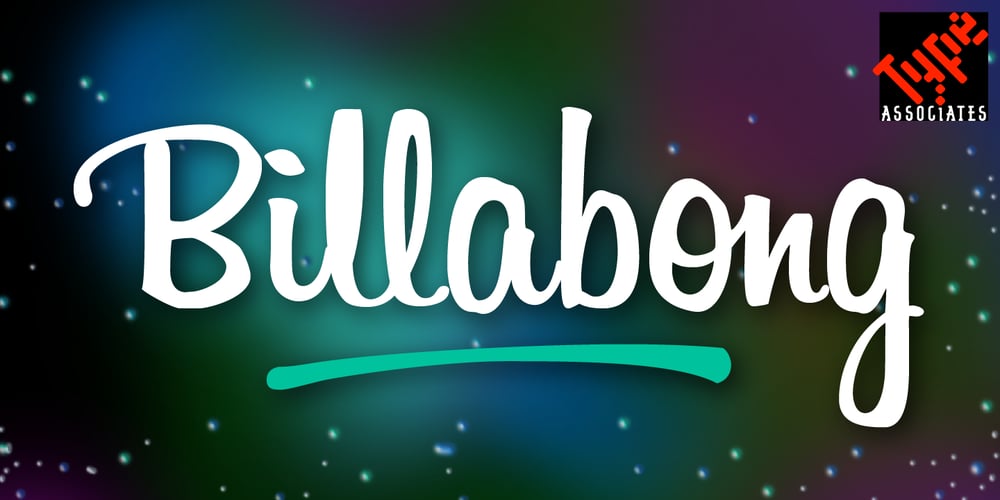
Billabong Font Family was designed by Russell Bean and published by Type Associates. Billabong contains 4 styles and family package options. Billabong has its origins in the handlettered 40s and 50s script headings that seem to have endured especially in signage when style doesn’t matter too much.Unlike today’s scripts Billabong is tightly spaced and Opentype font features allow for a myriad of ligatures to improve fit and evenness of color. Users can select their choice of strokes, ornaments and ending flourishes for added emphasis and style.Download comprehensive User Guide here.